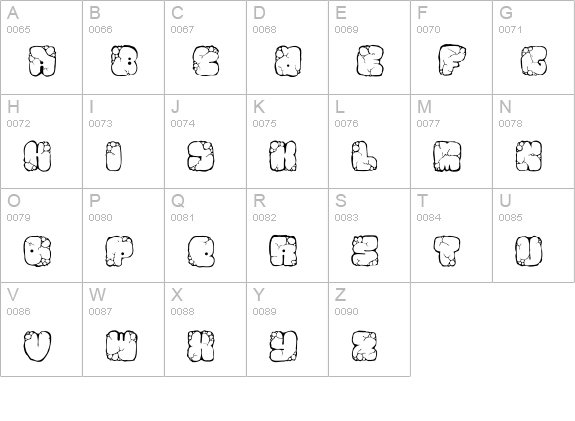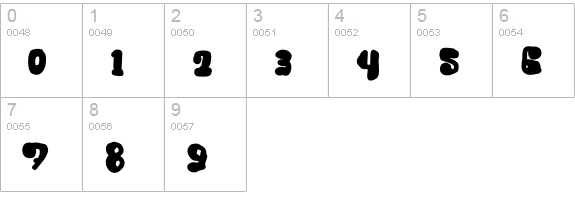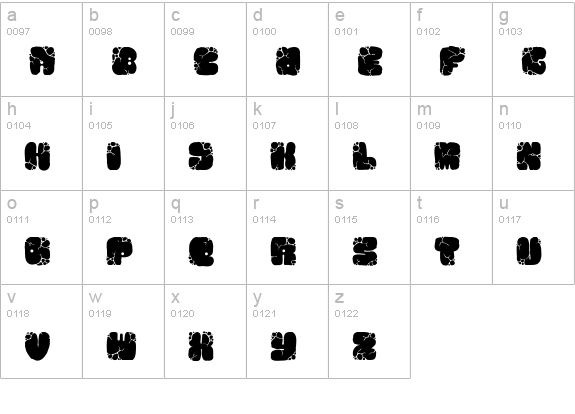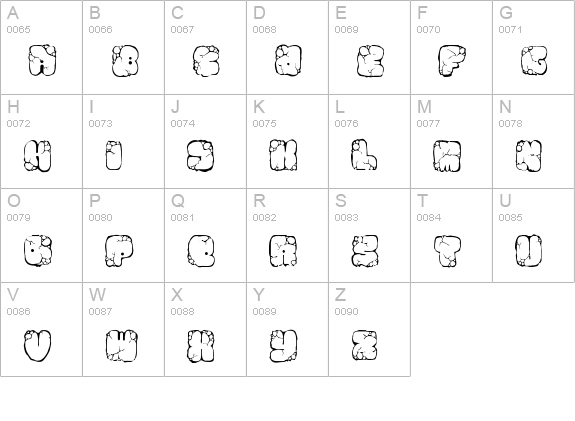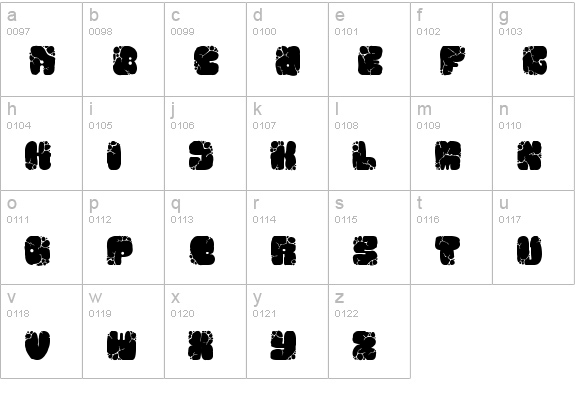
Introducing MAWNS rock font, a stunning typeface that embodies the rebellious spirit of rock and roll. With its edgy and bold letterforms, this font is perfect for capturing the raw energy and attitude of the rock genre. Whether you're designing album covers, posters, or merchandise, MAWNS rock font will make a powerful statement. What makes MAWNS rock font even more exciting is that it is completely free! Yes, you heard it right - this incredible font is freely available to download at FontsMarket.com. No need to worry about breaking the bank or searching for alternative options. Now you can have access to a high-quality, rock-inspired font without spending a dime. Designed with meticulous attention to detail, MAWNS rock font features unique characters that exude a sense of rebellion and individuality. Each letter is carefully crafted to showcase the perfect balance between boldness and legibility, ensuring that your designs will stand out from the crowd. The versatility of MAWNS rock font is another reason to love it. Whether you're creating a vintage-inspired rock album cover or a modern, grunge-infused poster, this font can adapt to any style or concept. Its versatility allows you to explore different creative directions while maintaining a cohesive and impactful visual identity. Don't miss out on the opportunity to elevate your designs with MAWNS rock font. Download it for free today at FontsMarket.com and let your creativity run wild. Unleash the power of rock and roll typography and make a lasting impression with this incredible font.